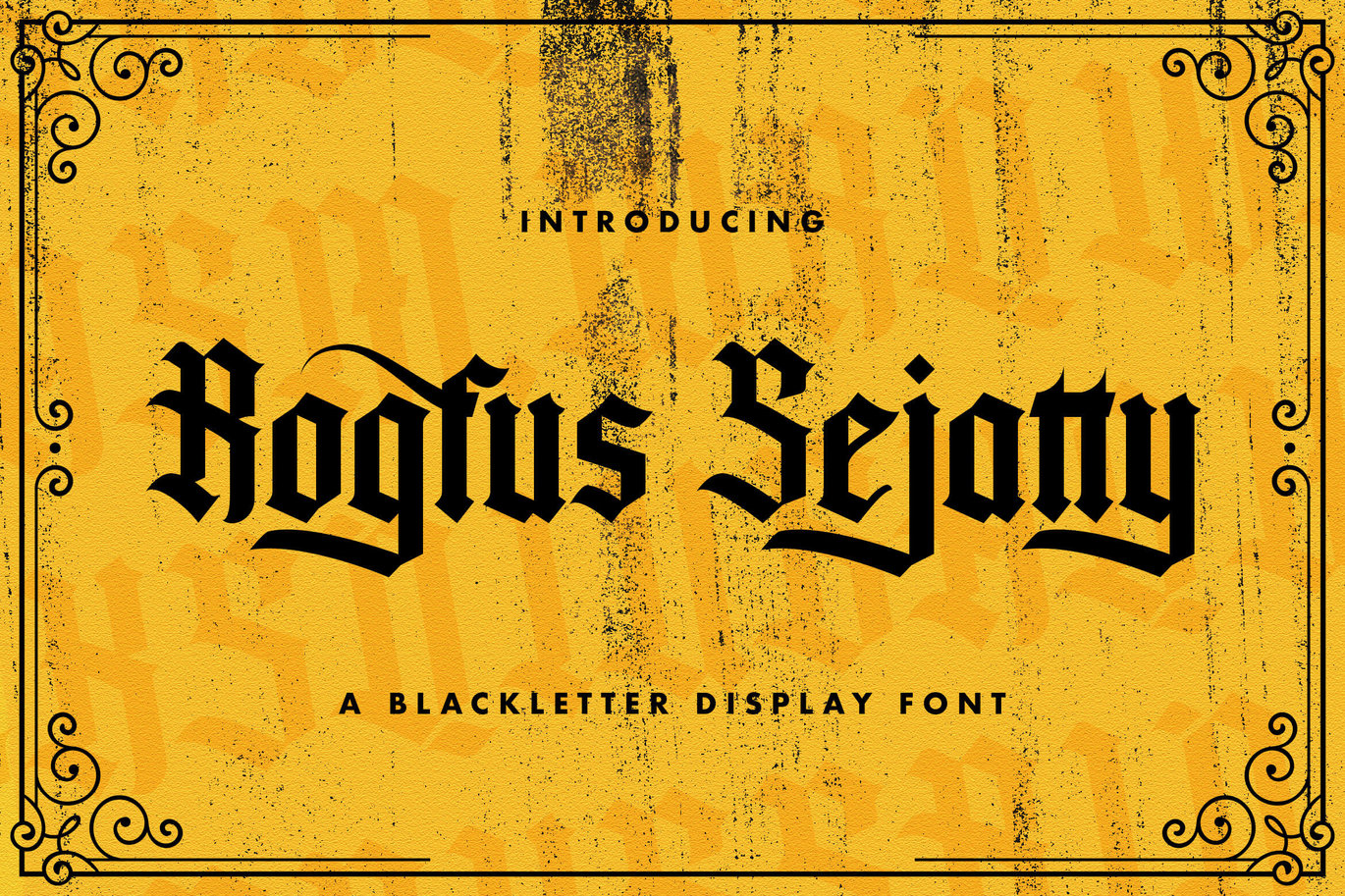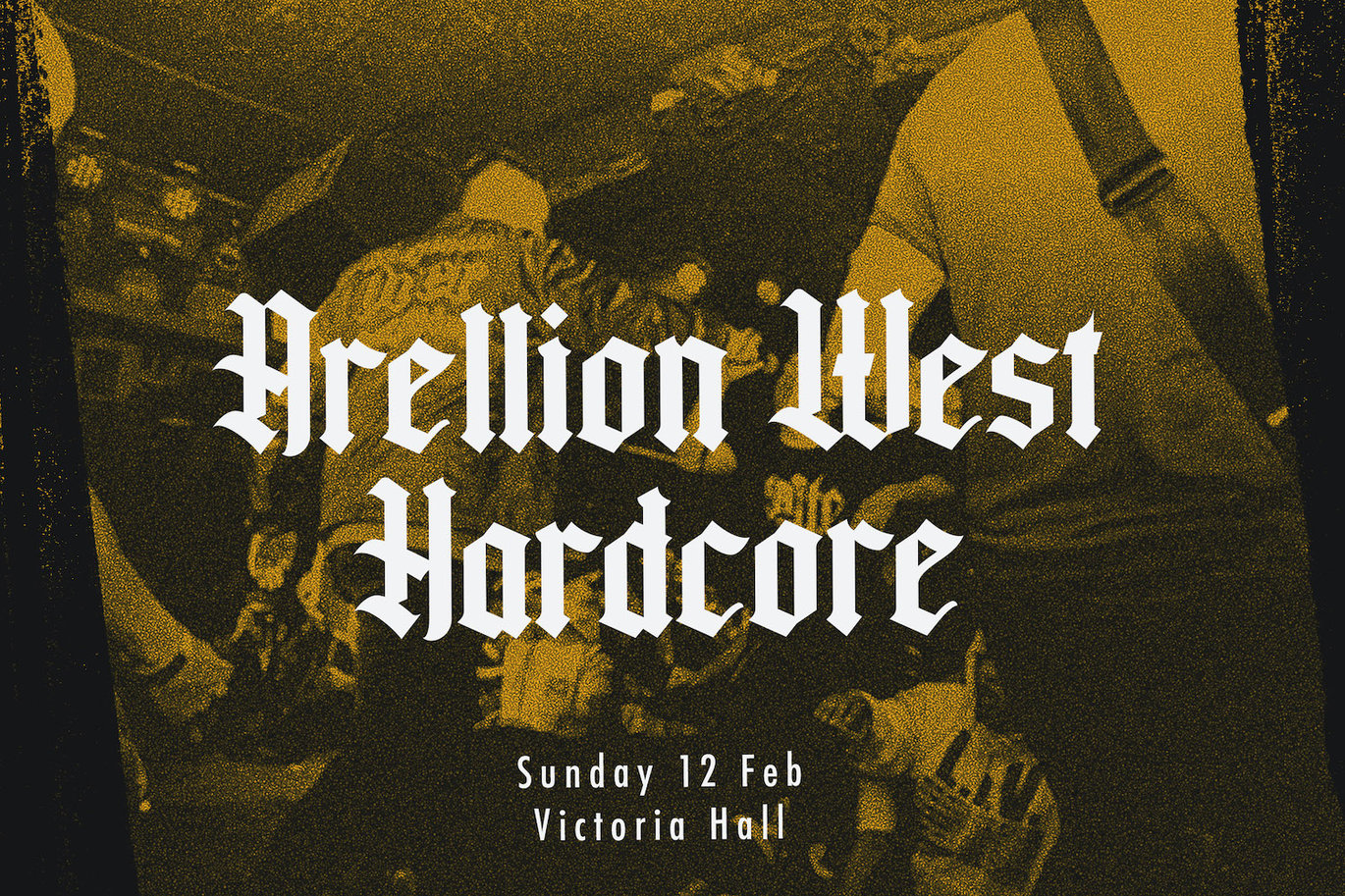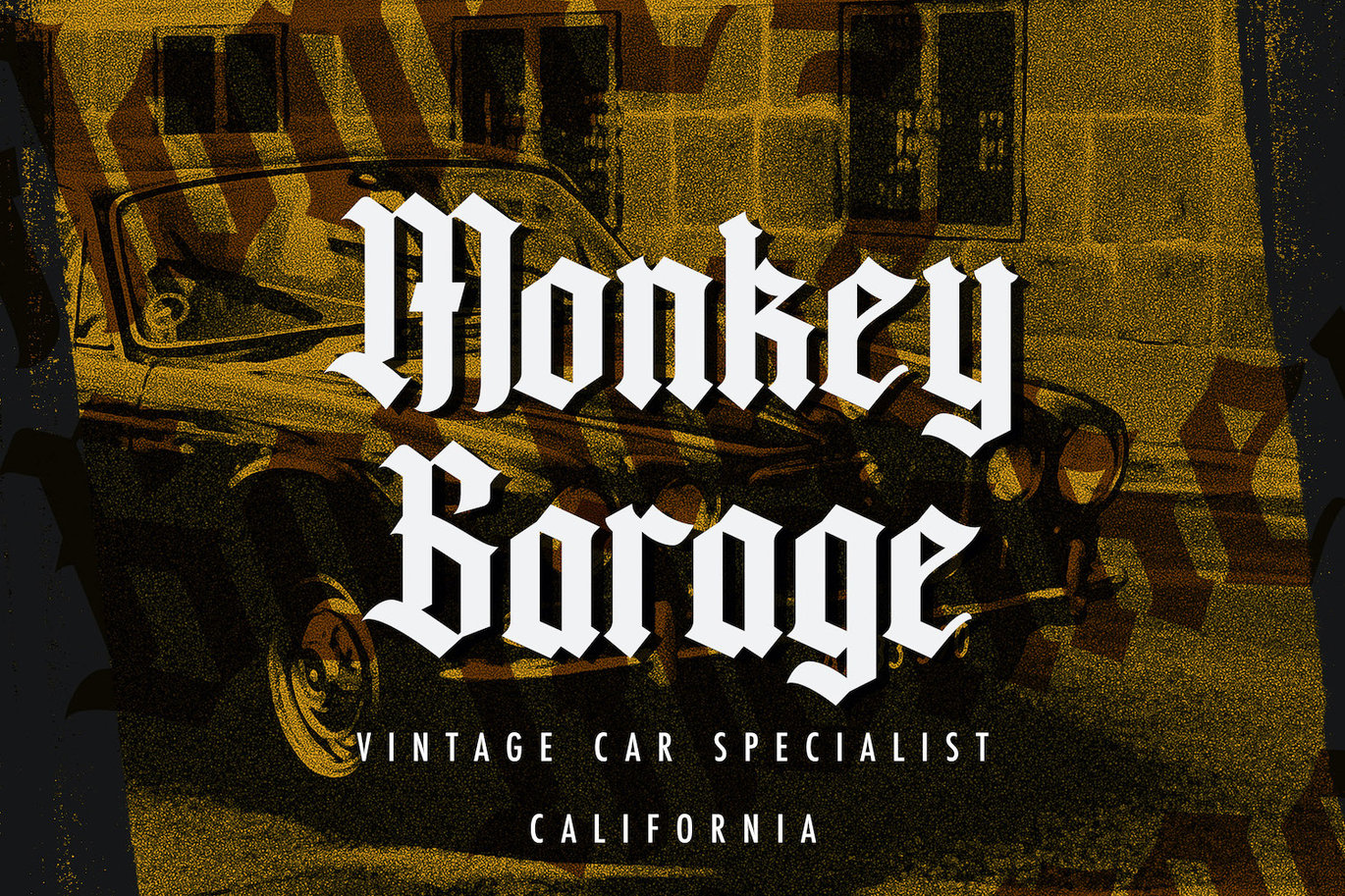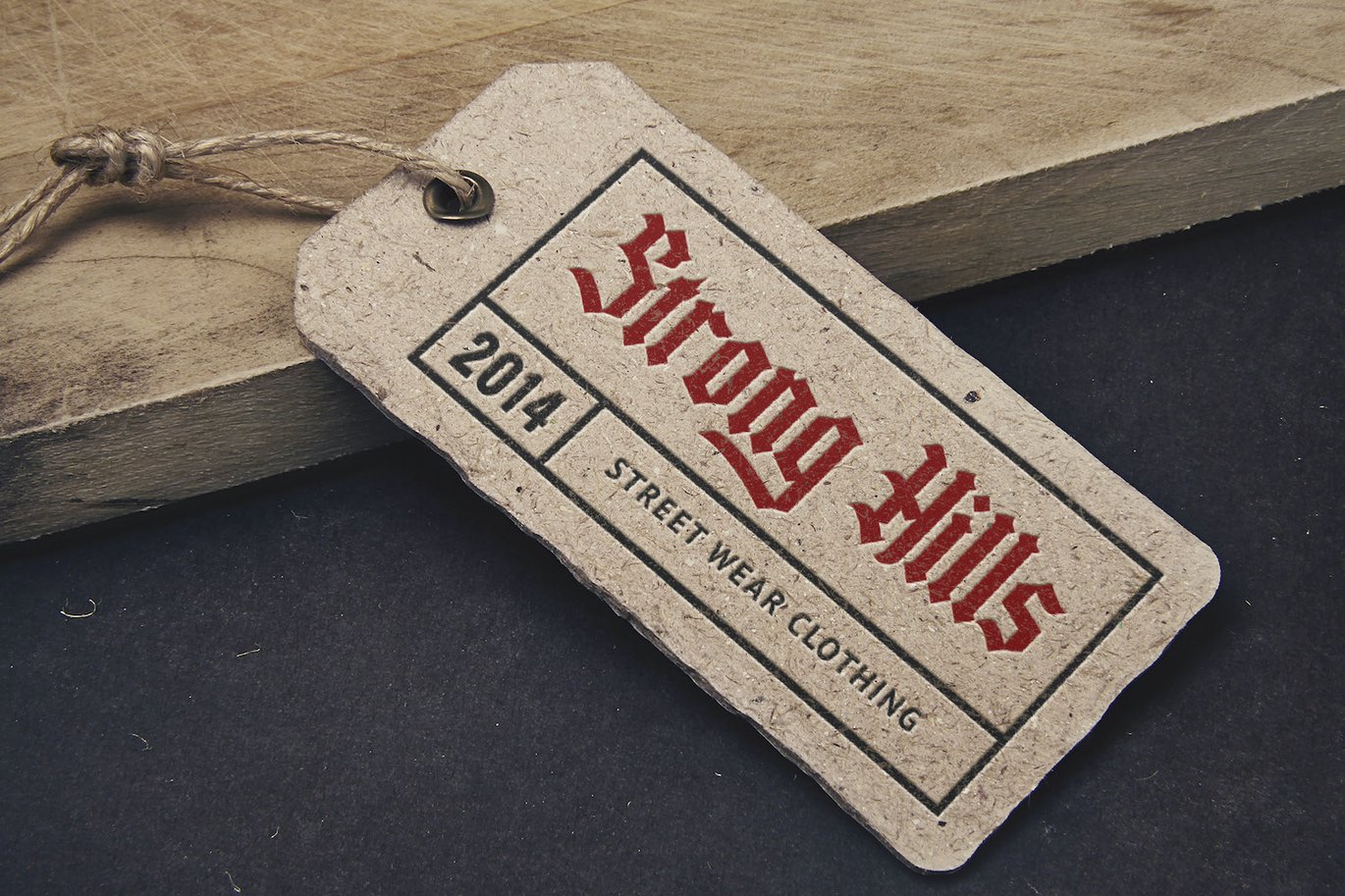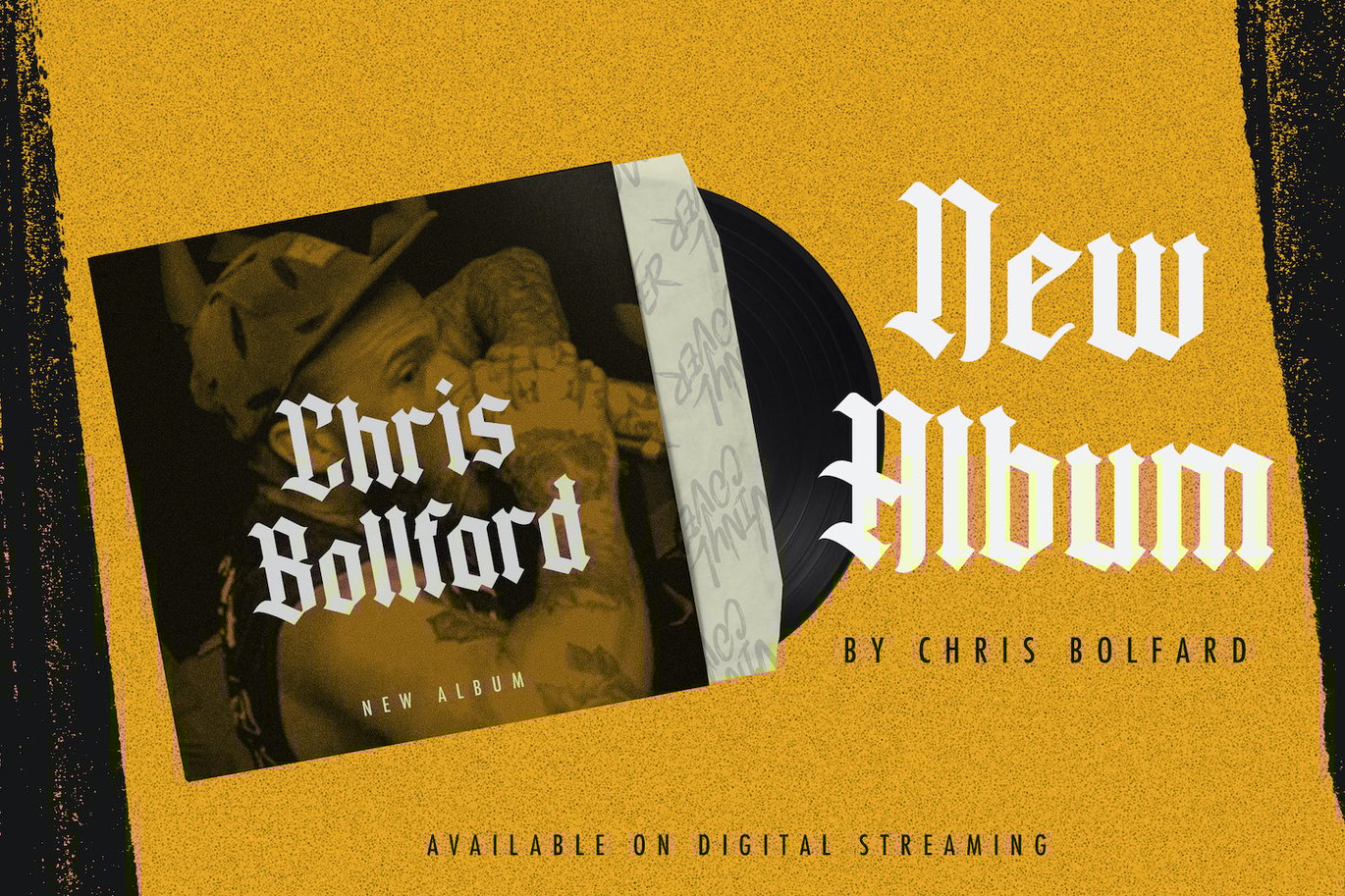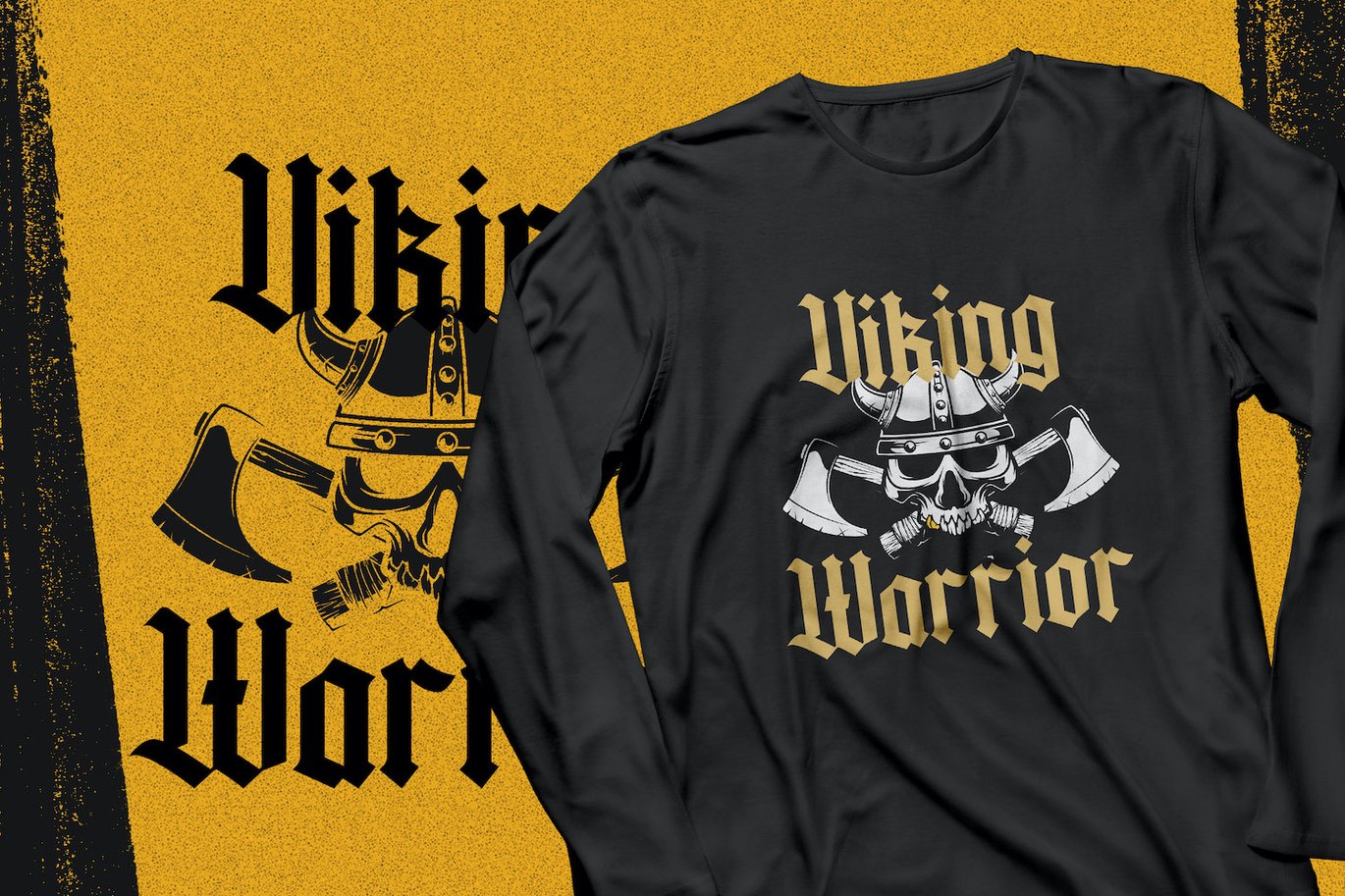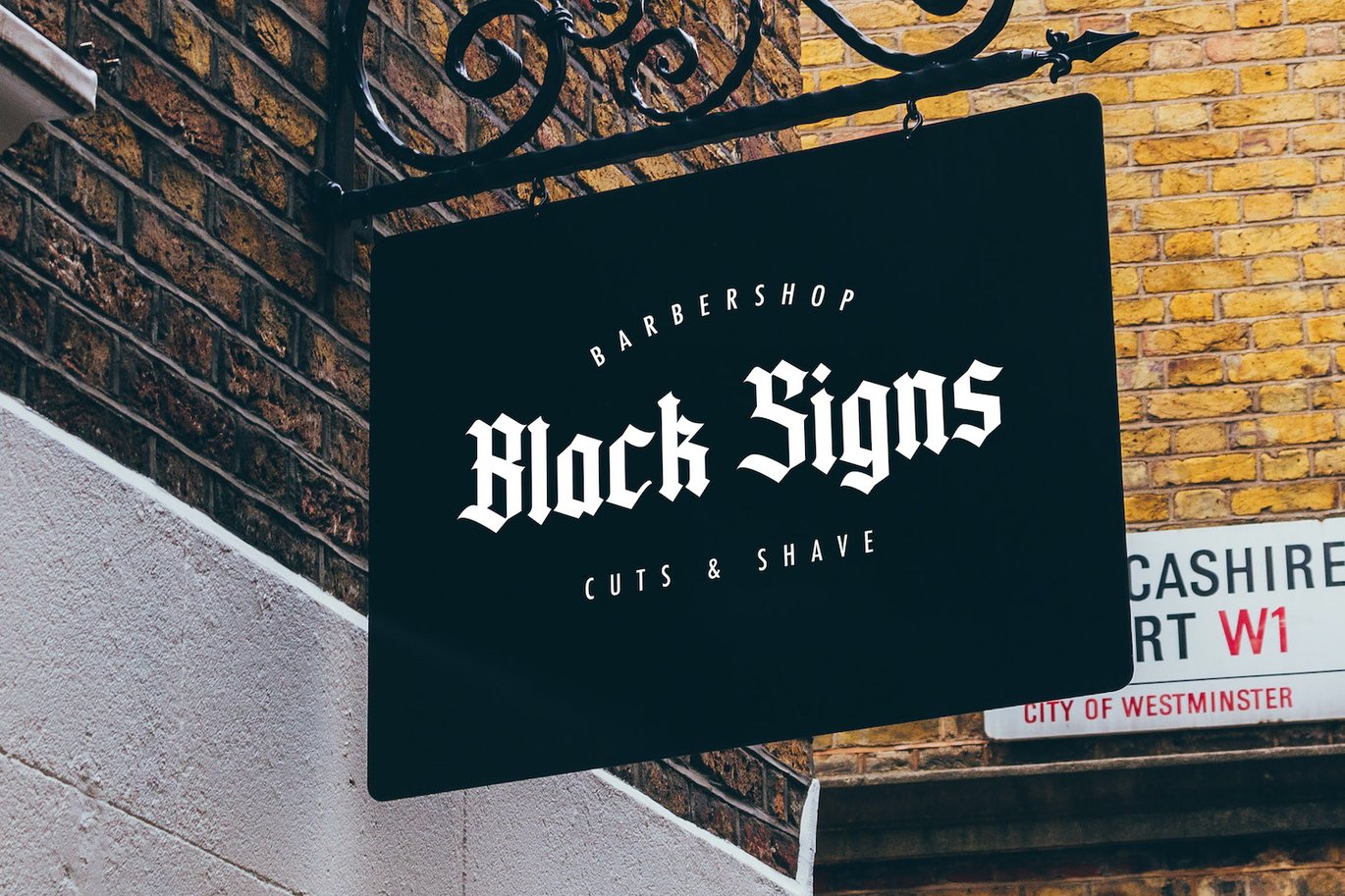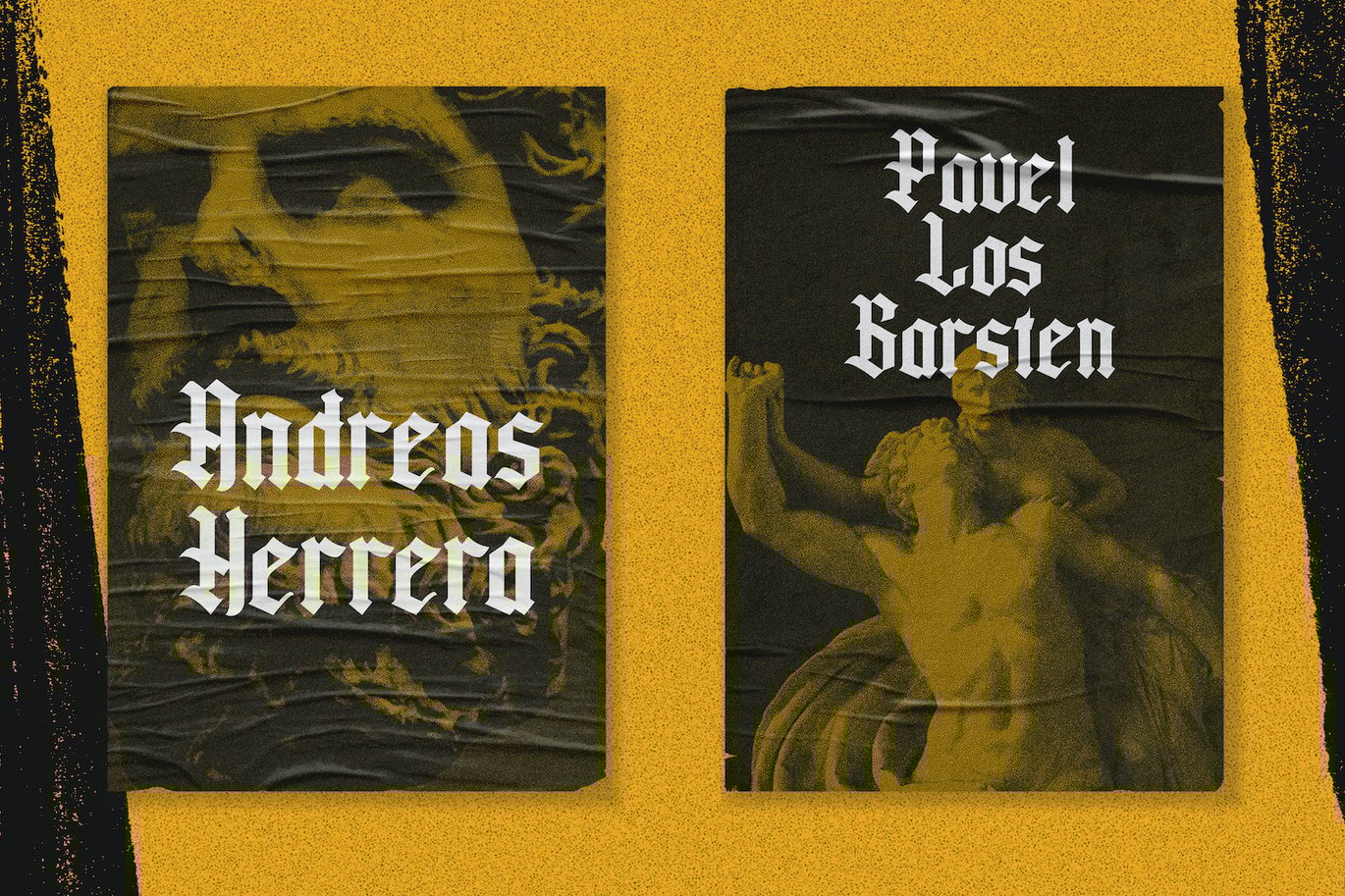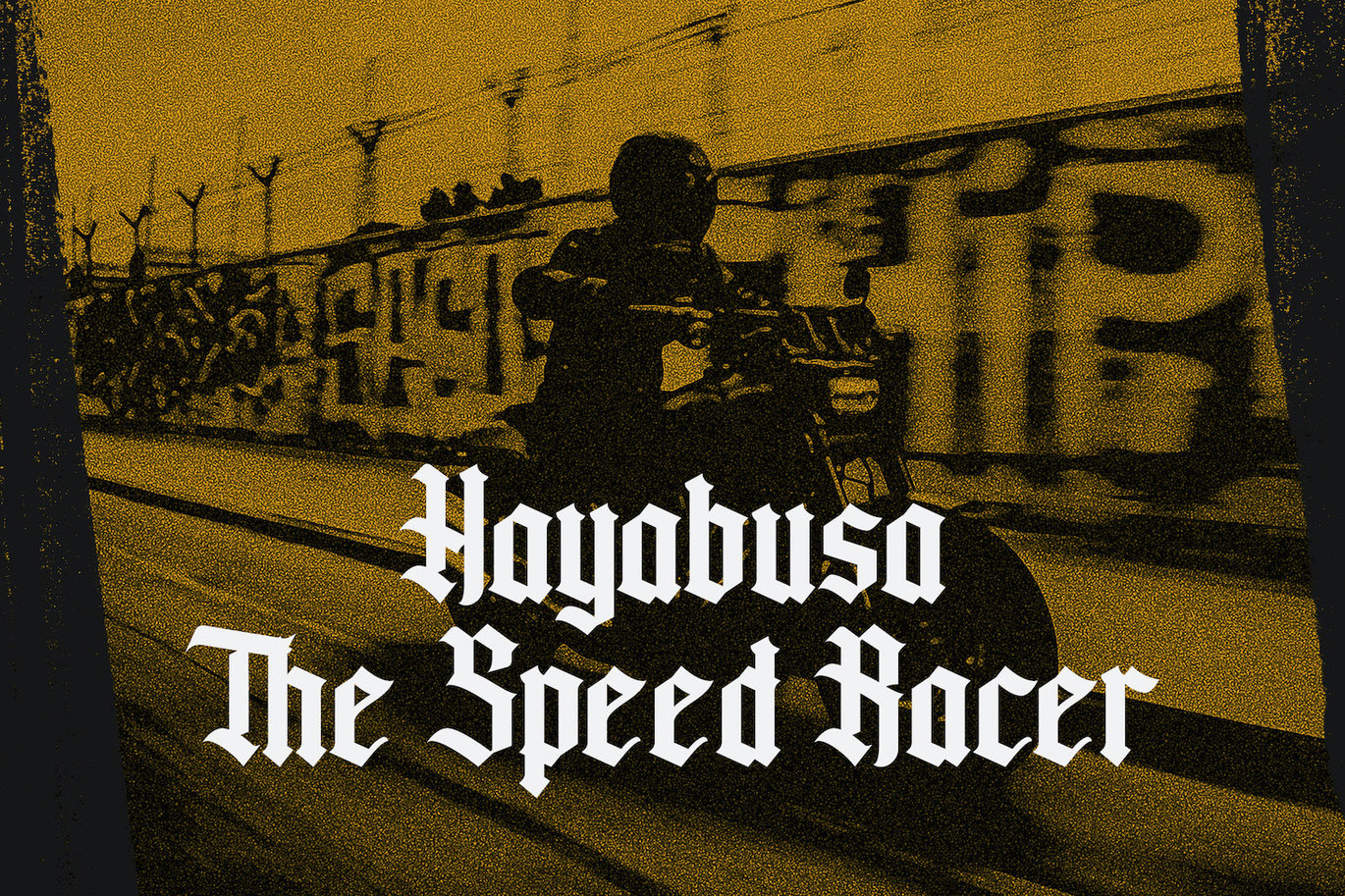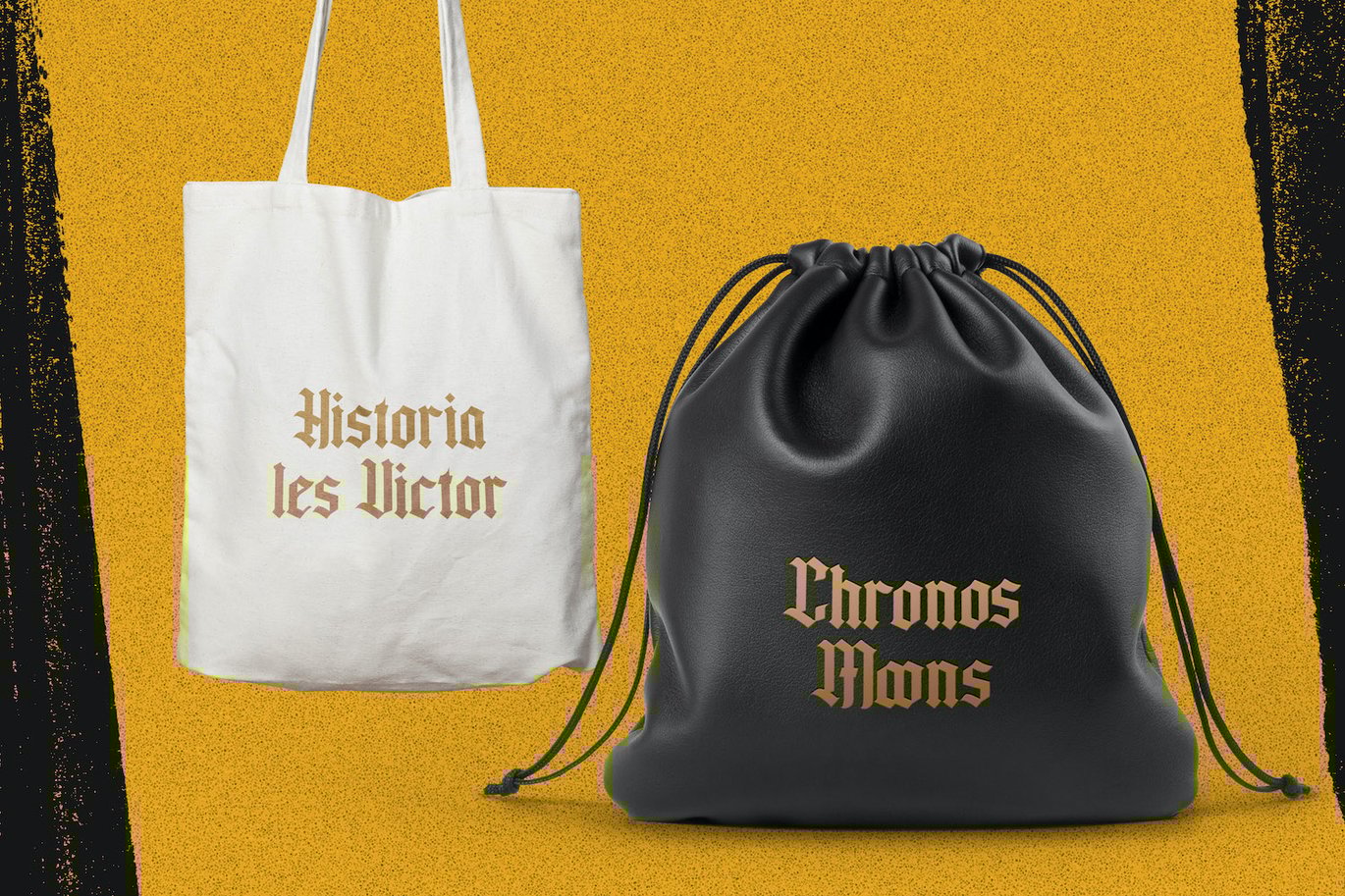
Rogfus Sejatty – Blackletter Font
Introducing Rogfus Sejatty – Blackletter Font
Rogfus Sejatty is an incredibly authentic and daring blackletter font. Add this font to your favorite creative ideas and notice how it makes them stand out!